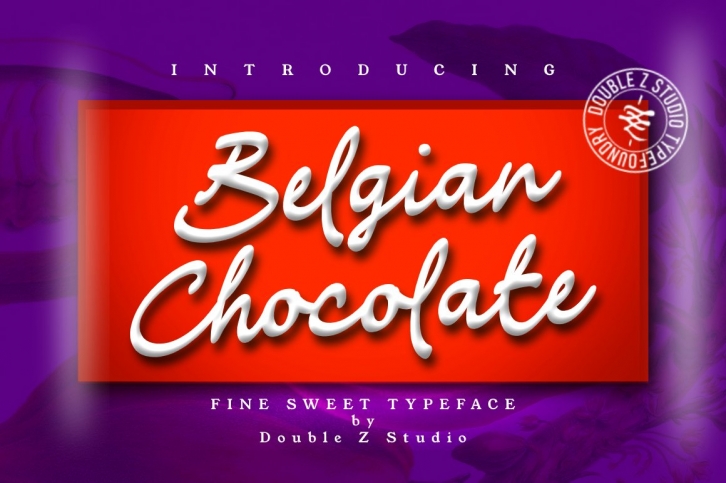
Belgian Chocolate Font Download
Belgian Chocolate is a great font that was designed by Double Z Studio. Imagine the amount of combinations you can create using this font! The archive is 17.50 MB and it was released on October 15, 2020. Belgian Chocolate looks beautiful on wedding invitations, greeting cards, logos, posters, labels, t-shirt designs, logos, business cards and is perfect for use in ink or watercolor works, fashion, magazines, packaging and food menus, children's books and more!